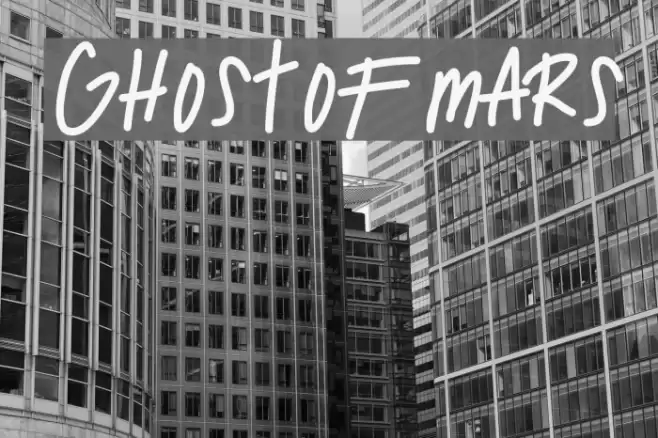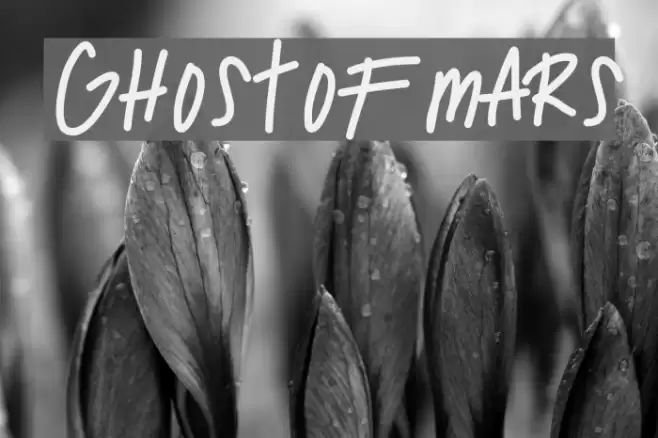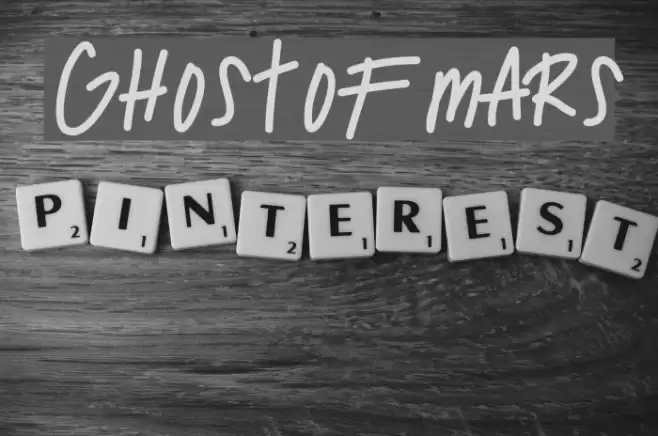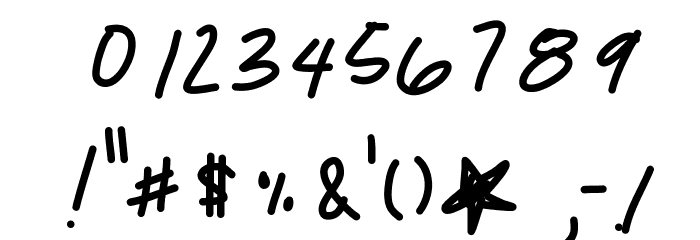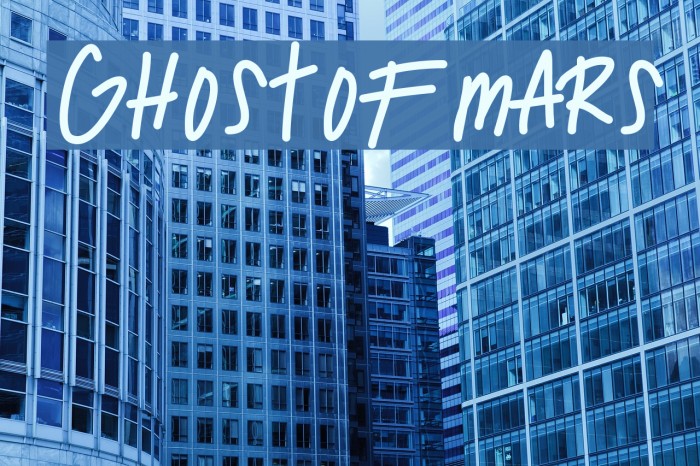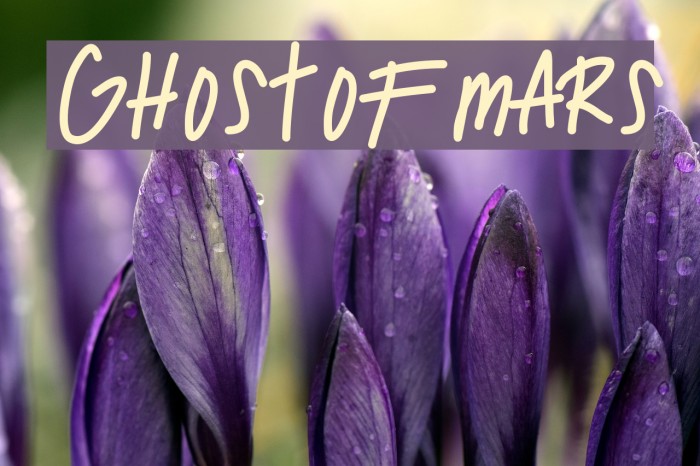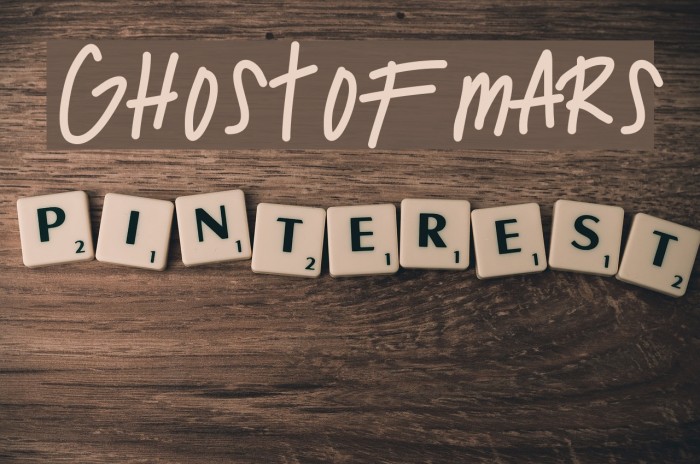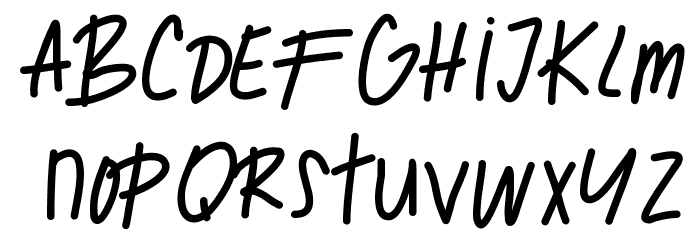
GhostOfMars Font
GhostOfMars Description
This font exudes a casual and handwritten style, characterized by its fluid and dynamic strokes. The letters are slightly slanted, giving it an informal and approachable feel. The uppercase and lowercase letters are distinct, with a playful and spontaneous appearance. The numbers and special characters maintain the same lively style, ensuring consistency throughout. This font is perfect for projects that require a personal touch, such as greeting cards, invitations, or creative branding. Its unique style captures attention while remaining legible and engaging.
A casual, handwritten font with fluid and dynamic strokes from Uncategorized fonts.
- Proposed Projects: Ideal for greeting cards, invitations, creative branding, and personal projects.
- Overall Style: Casual
- Use Case: Headlines, Logos, Invitations